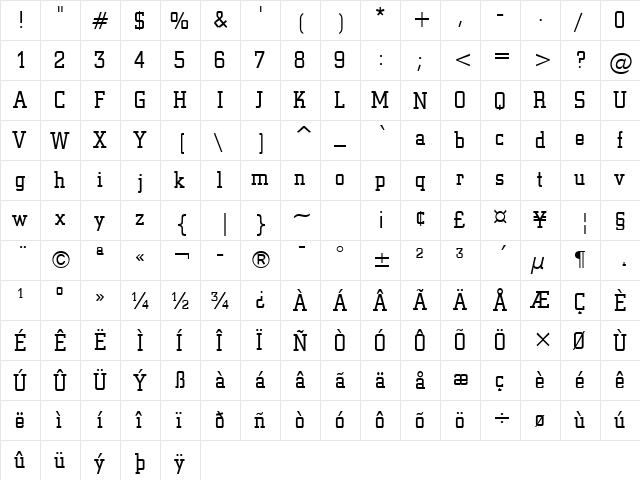
Warwick 2 Regular
Design Context for Warwick 2 Typeface
Warwick 2 takes a measured approach to typography — its balanced proportions and neutral character make it a reliable workhorse for both digital and print work.